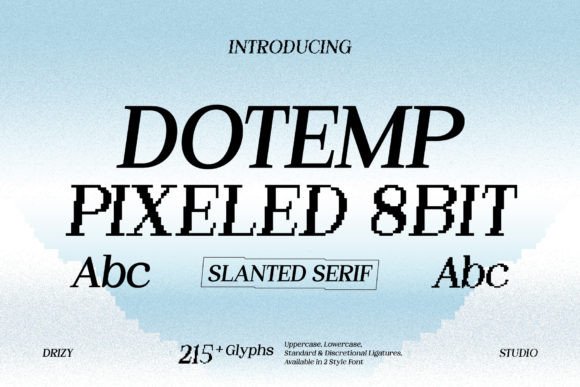
Introducing Dotemp Font: A Charming 8-Bit Pixel Slanted Font
Are you looking for a font that can transport you back to the golden era of retro gaming? Look no further than Dotemp Font, a charming and distinctive 8-bit pixel slanted font that is sure to capture the essence of nostalgia. In this article, we’ll explore the unique features of Dotemp Font, its design inspiration, and how it can add a dreamy aesthetic to any text.
The Nostalgia of Retro Gaming
The world of retro gaming is a nostalgic haven for many of us. Who can forget the countless hours spent playing classic arcade games like Pac-Man, Donkey Kong, and Space Invaders? Or the fond memories of using old-school computer interfaces, like the Commodore 64 or Apple II? These retro gaming experiences not only shaped the gaming industry but also influenced the design of digital fonts.
Dotemp Font is a modern take on the classic 8-bit pixel fonts that were prevalent during the retro gaming era. Its blocky, pixelated characters and unique slanted design evoke a sense of nostalgia, transporting us back to a time when gaming was still in its infancy.
Design Inspiration
Dotemp Font draws inspiration from the visual design of classic arcade games and old-school computer interfaces. The font’s creator aimed to capture the essence of 8-bit pixel art, with its characteristic blocky and pixelated aesthetic.
Each letter and symbol in Dotemp Font is crafted with precision, featuring sharp edges and a distinct slant that adds a dreamy aesthetic to any text. The font’s slanted design gives it a dynamic, playful feel that’s perfect for headlines, titles, and other display text.
The design inspiration for Dotemp Font can be seen in its:
- Blocky, pixelated characters
- Unique slanted design
- Sharp edges and precision craftsmanship
- 8-bit pixel art aesthetic
Key Features of Dotemp Font
So, what makes Dotemp Font so special? Here are some of its key features:
- 8-bit pixel art aesthetic: Dotemp Font features a blocky, pixelated design that’s reminiscent of classic arcade games and old-school computer interfaces.
- Unique slanted design: The font’s slanted design gives it a dynamic, playful feel that’s perfect for headlines, titles, and other display text.
- Precision craftsmanship: Each letter and symbol in Dotemp Font is crafted with precision, featuring sharp edges and a distinct slant.
- Nostalgic feel: Dotemp Font captures the essence of nostalgia, transporting us back to a time when gaming was still in its infancy.
Using Dotemp Font in Your Design Projects
Dotemp Font is a versatile font that can be used in a variety of design projects, from:
- Game development
- Graphic design
- Web design
- Branding and advertising
The font’s unique aesthetic and nostalgic feel make it perfect for:
- Headlines and titles
- Logos and branding
- Posters and flyers
- Social media graphics
Tips for Using Dotemp Font Effectively
Here are some tips for using Dotemp Font effectively in your design projects:
- Use it sparingly: Dotemp Font is a bold, attention-grabbing font. Use it sparingly to avoid overwhelming your design.
- Pair it with a sans-serif font: Pair Dotemp Font with a sans-serif font to create a nice contrast and add visual interest to your design.
- Experiment with colors: Dotemp Font looks great in bright, bold colors. Experiment with different colors to find the perfect combination for your design.
Dotemp Font is a charming and distinctive 8-bit pixel slanted font that’s perfect for designers looking to add a touch of nostalgia to their design projects. With its blocky, pixelated characters and unique slanted design, Dotemp Font captures the essence of retro gaming and old-school computer interfaces.
Whether you’re a game developer, graphic designer, or simply a font enthusiast, Dotemp Font is a must-have font that’s sure to inspire your creativity. So why not give it a try and see how it can add a dreamy aesthetic to your next design project?